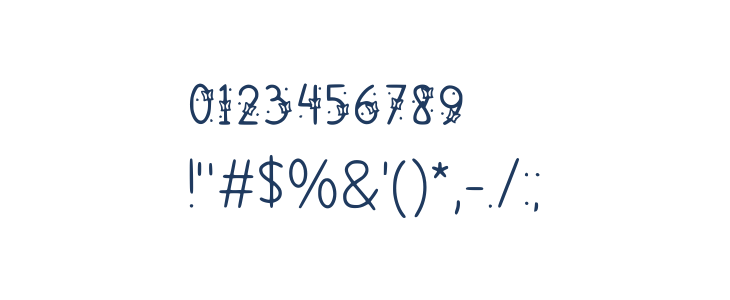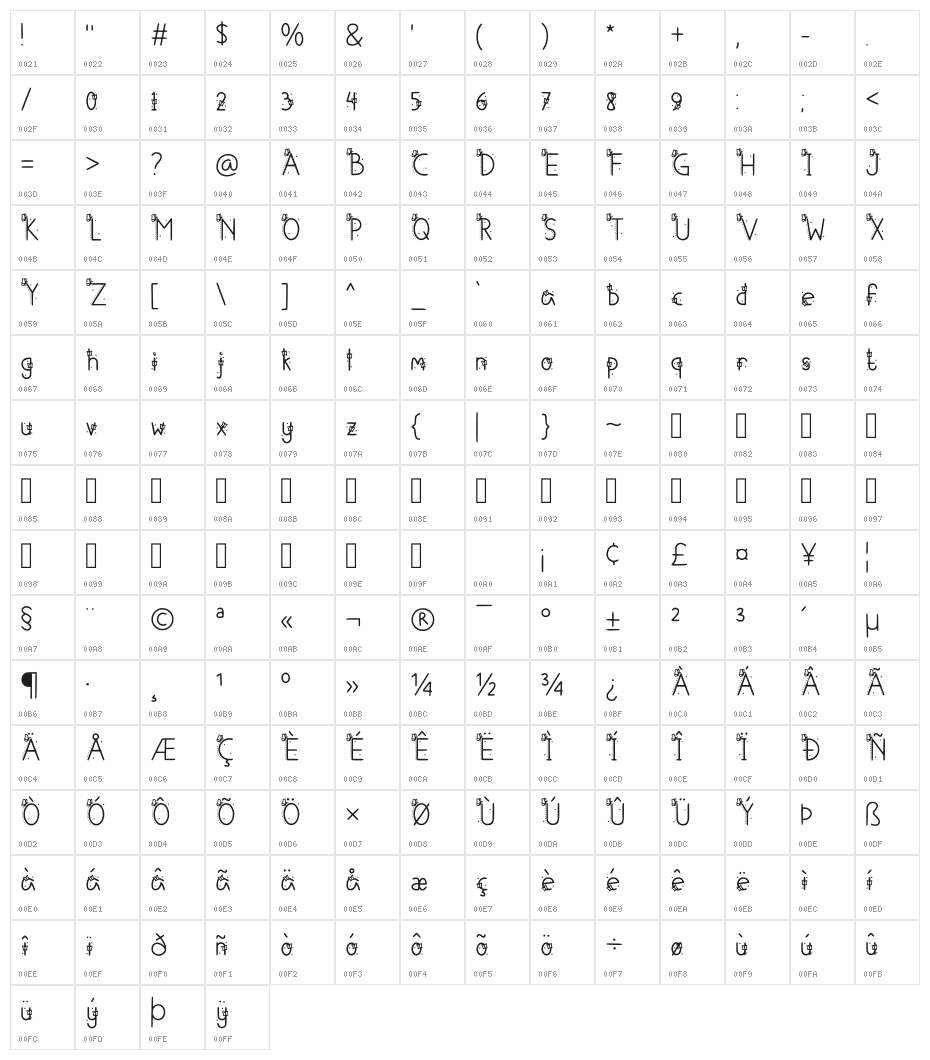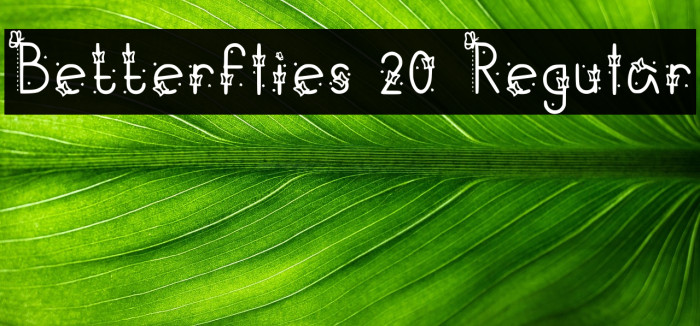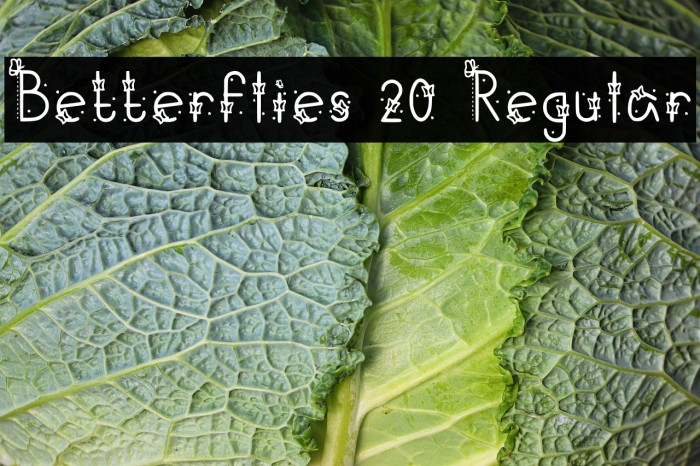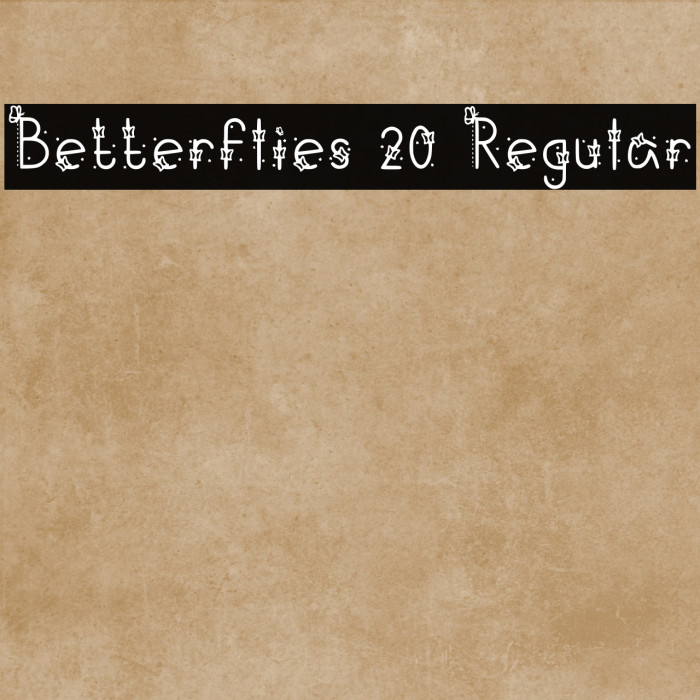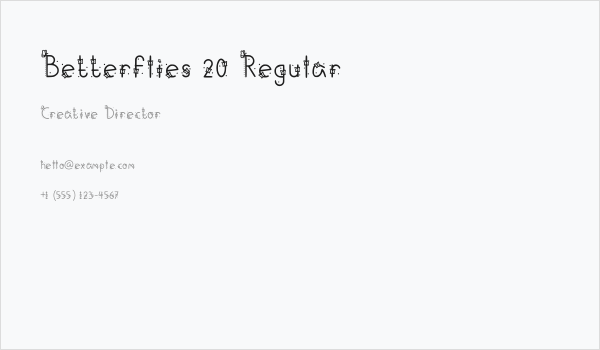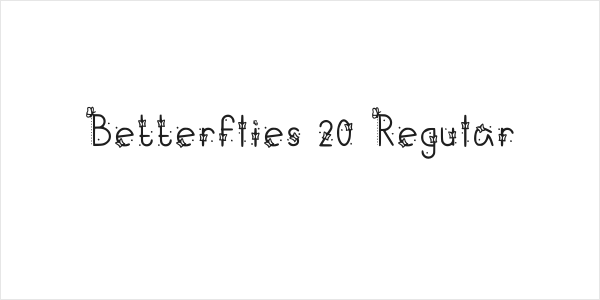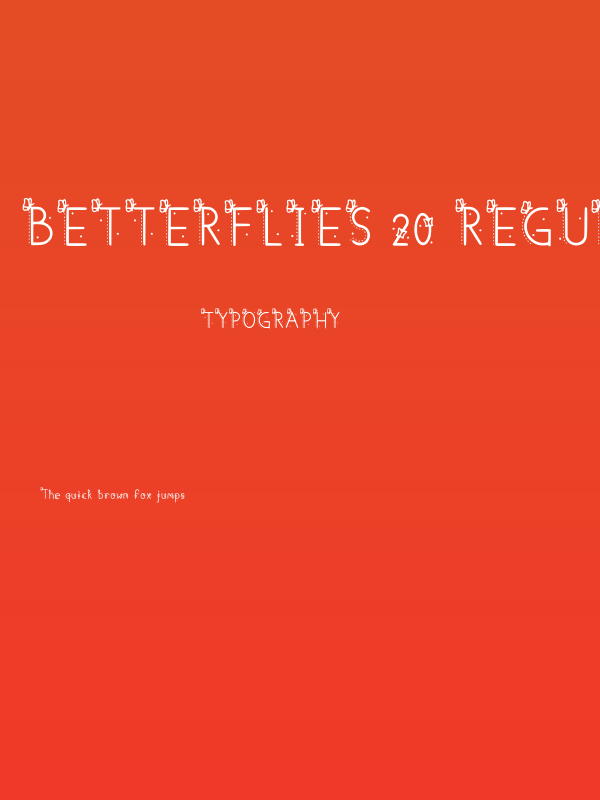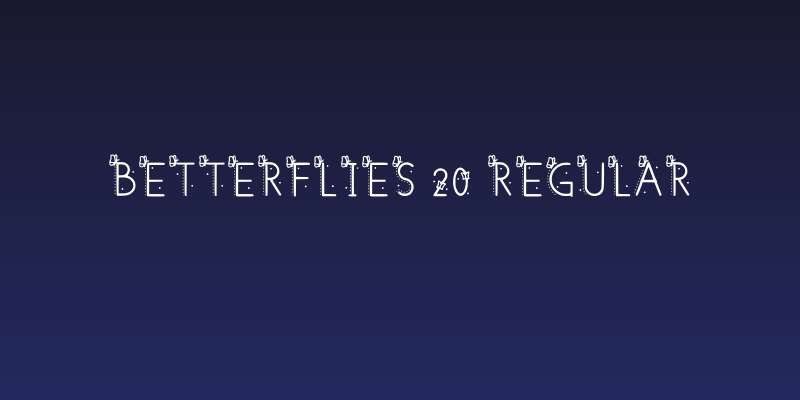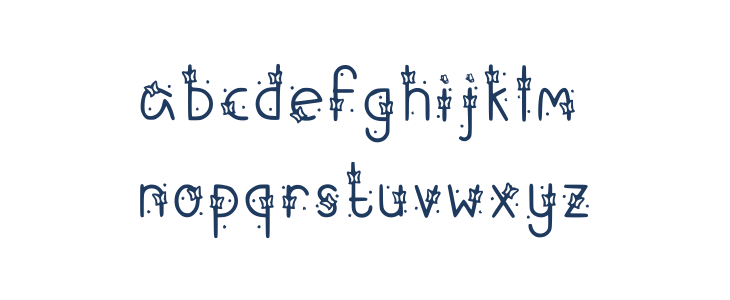
Betterflies 20 Regular Font
Betterflies 20 Regular Description
This whimsical and playful font features a unique design where each character is adorned with butterfly motifs. The letters are primarily uppercase and lowercase alphabets, along with numbers and special characters, all maintaining a consistent decorative style. The strokes are thin and delicate, with a dotted pattern that adds to the overall charm. The butterflies are intricately integrated into the characters, giving the font a lively and animated appearance. This font is perfect for projects that require a touch of nature or a whimsical theme, making it ideal for children's books, greeting cards, or playful branding.
| Proposed Projects | Ideal for children's books, greeting cards, playful branding, and nature-themed projects. |